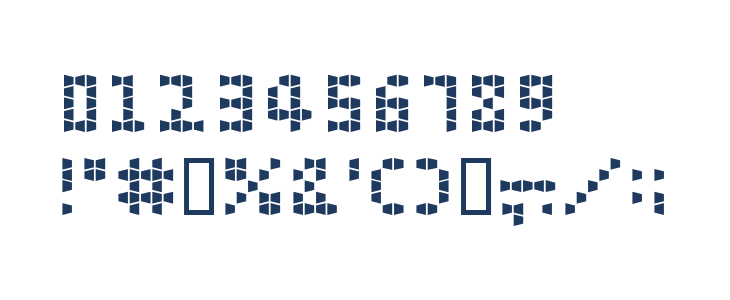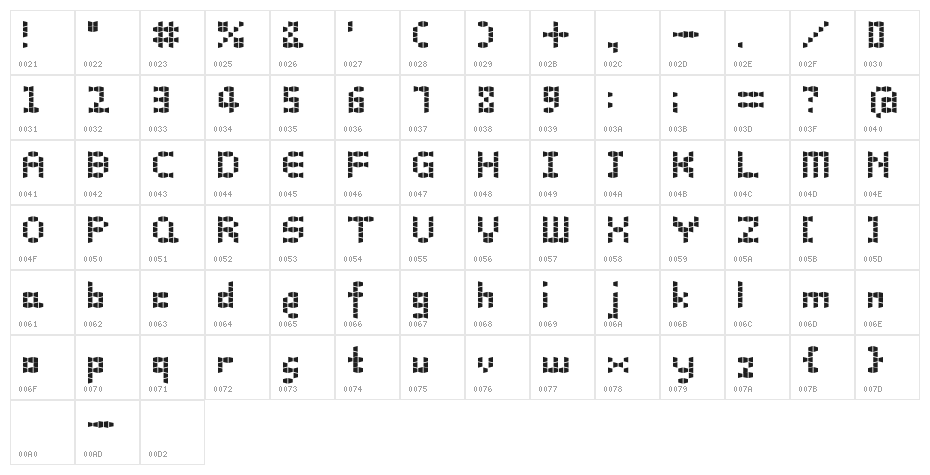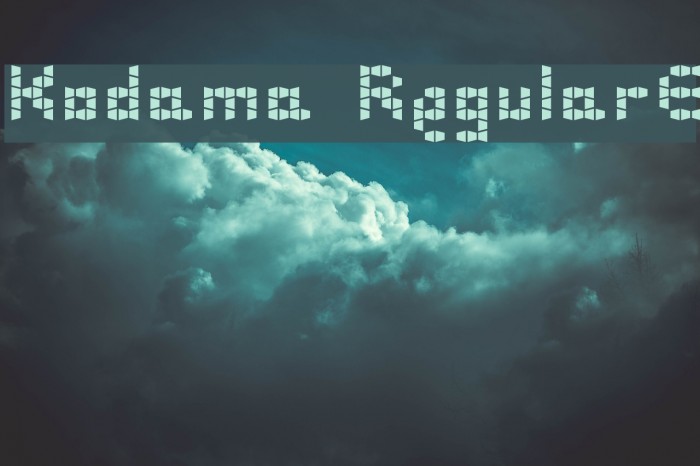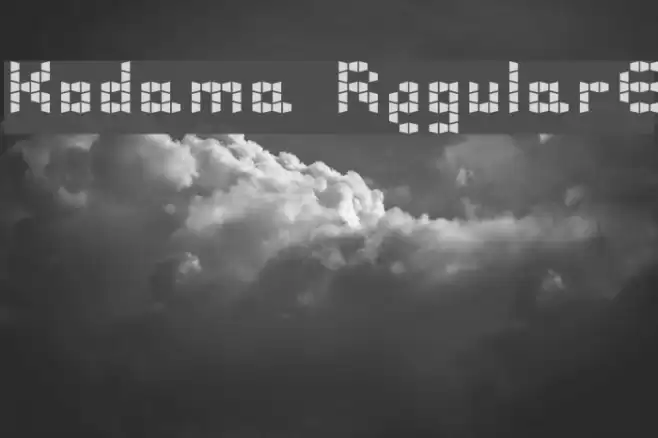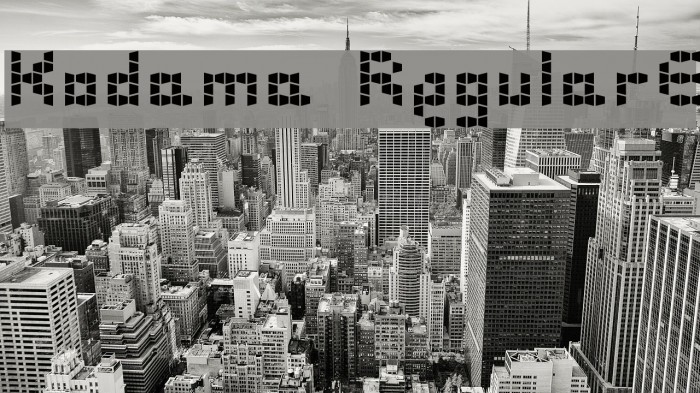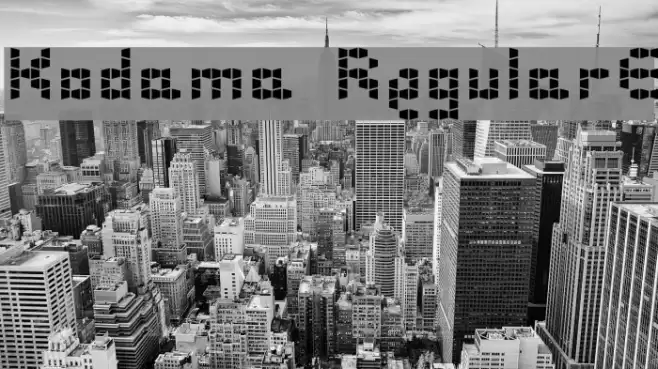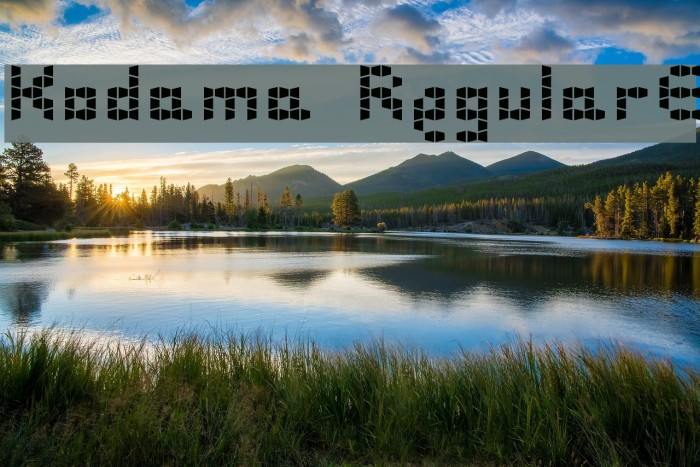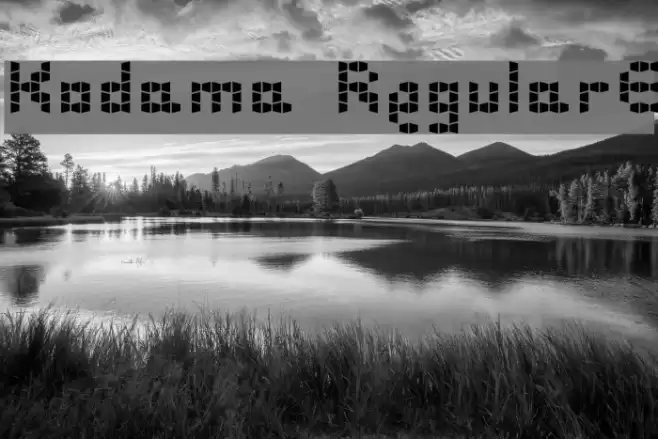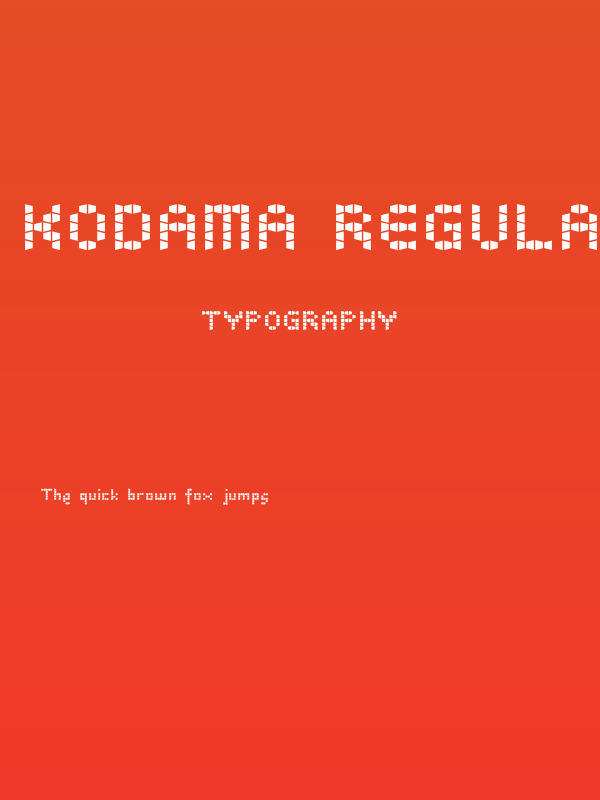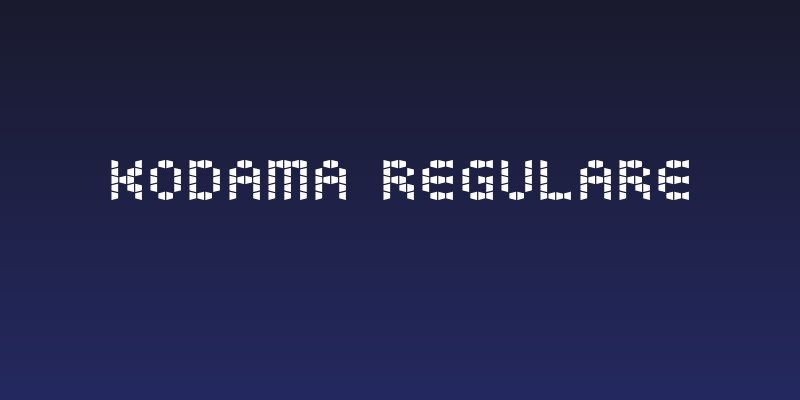
Kodama RegularE Font
Kodama RegularE Description
This font features a unique geometric design, where each character is constructed from a series of triangular shapes. The overall appearance is bold and striking, with a strong emphasis on symmetry and angularity. The uppercase and lowercase letters maintain a consistent style, creating a cohesive look across the alphabet. Numbers and special characters follow the same geometric pattern, ensuring uniformity throughout. The font's distinct style makes it ideal for creative and modern projects that require a standout typeface.
| Proposed Projects | Ideal for branding, posters, and digital artwork where a modern and eye-catching typeface is desired. |